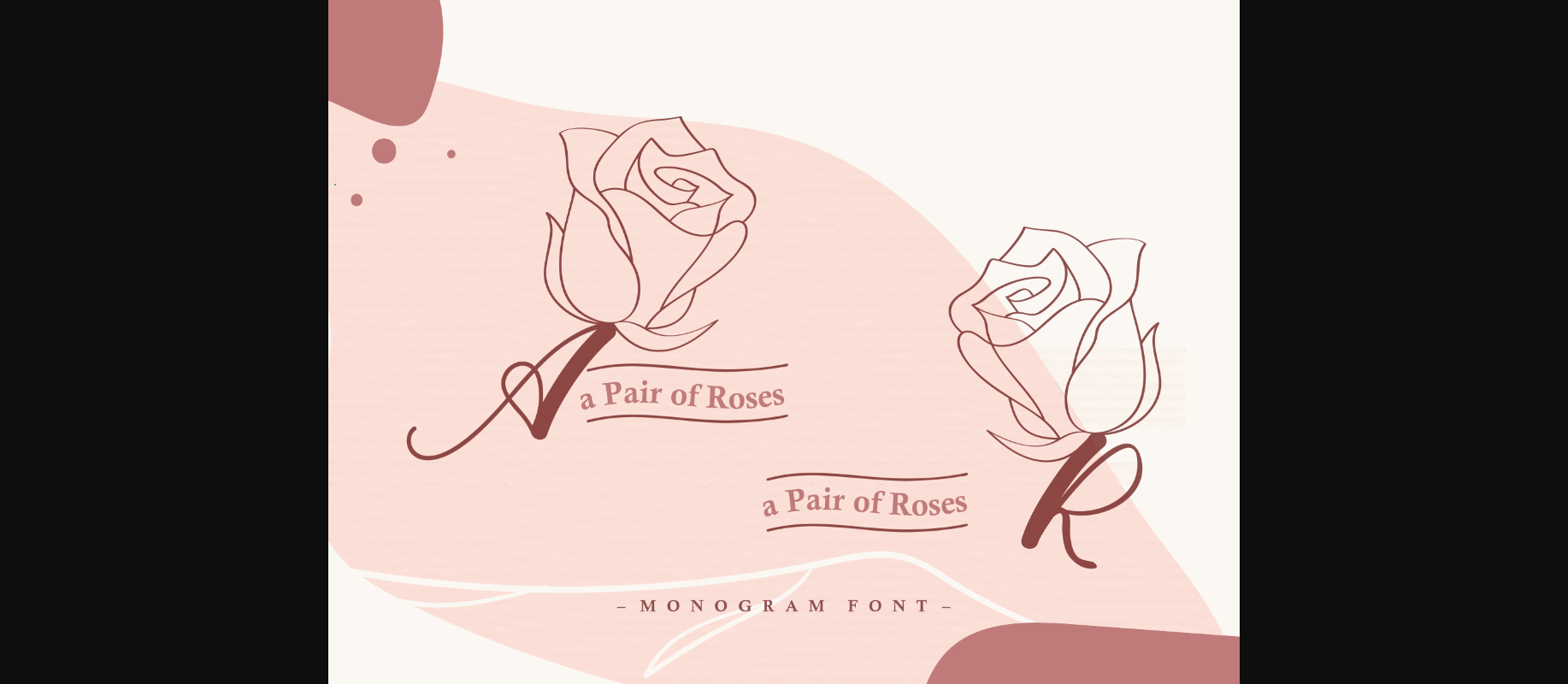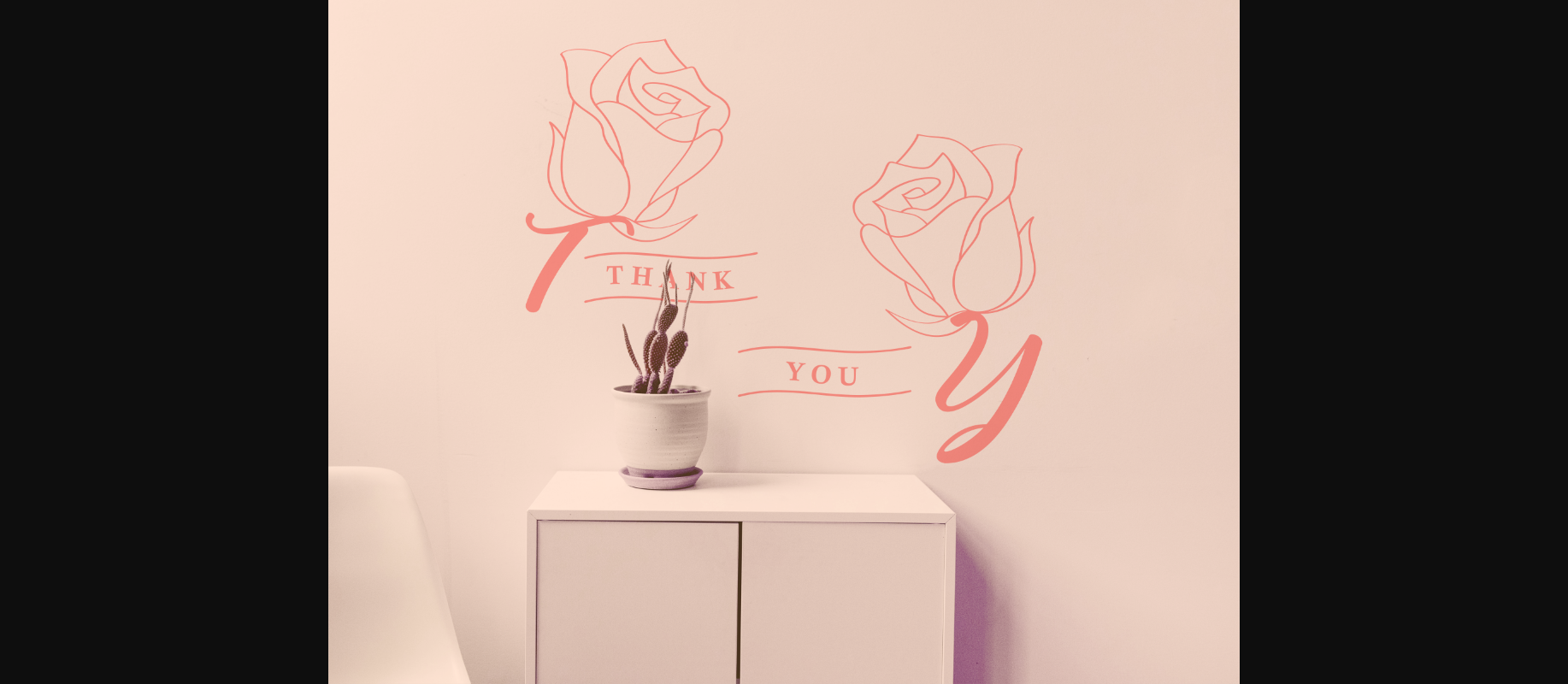
About A Pair of Roses Font
A pair of Roses is a very unique and angelic decorative font, featuring a red rose as an ornament. Fall in love with its incredibly versatile style and use it to create gorgeous wedding invitations, beautiful stationery art, eye-catching social media posts, and more!